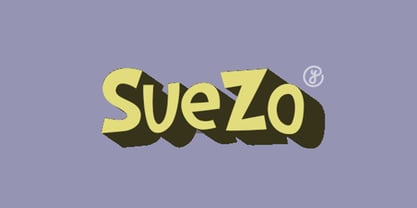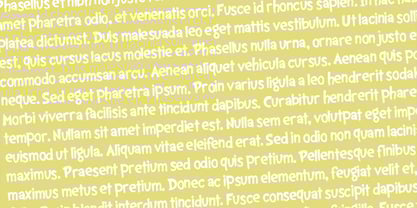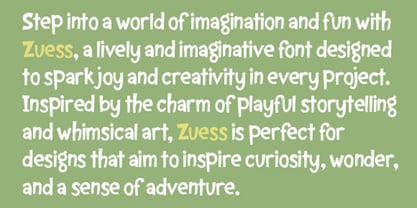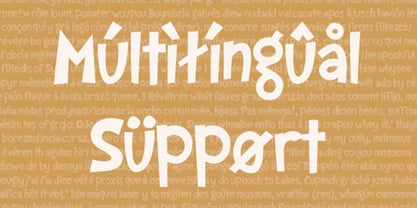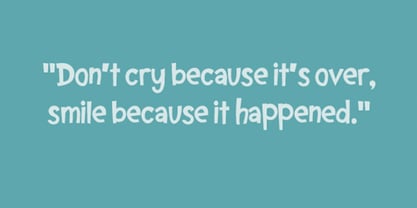
Suezo
The Suezo Font Family was designed by Untung Prasetyo and published by Yebhu. Suezo contains 1 styles.
Font SueZo: A Whimsical Typeface for Playful Creativity
Step into a world of imagination and fun with SueZo , a lively and imaginative font designed to spark joy and creativity in every project. Inspired by the charm of playful storytelling and whimsical art, SueZo is perfect for designs that aim to inspire curiosity, wonder, and a sense of adventure.
Why Choose SueZo?
• Playful Personality : SueZo features bouncy curves, uneven baselines, and quirky letterforms that bring a sense of spontaneity and energy to your designs. Each character feels alive, as if it has its own story to tell.
• Versatile Use : Whether you're designing book covers, posters, branding materials, or invitations, SueZo adds a touch of magic to any creative project. It’s a font that works equally well for kids’ content and adult-friendly designs.
• Handcrafted Details : Every glyph in SueZo is meticulously crafted to feel organic and approachable, with a hand-drawn charm that makes your text stand out. Its slightly irregular shapes give it a warm, friendly vibe.
• Perfect for Storytelling : With its rhythmic flow and expressive style, SueZo is ideal for projects where words need to dance off the page. Use it for titles, quotes, or any content that needs a playful yet polished look.
Key Features
• Uppercase & Lowercase Characters : Both sets are included, offering flexibility while maintaining the font’s whimsical essence.
• Custom Ligatures : Add a unique twist to your text with special ligature combinations that enhance the playful feel.
• Multilingual Support : Communicate globally with support for multiple languages, ensuring everyone can enjoy the charm of SueZo.
• Bonus Illustrations : This package includes bonus doodles and icons inspired by fantastical creatures, quirky hats, and imaginative landscapes—perfect for completing your creative vision.
Where to Use SueZo
• Children’s Books & Educational Materials : Bring stories and lessons to life with a font that feels both fun and engaging.
• Branding & Marketing : Ideal for brands targeting families, educators, or anyone who loves a creative and approachable aesthetic.
• Event Design : From birthday parties to school events, SueZo adds a festive and memorable touch.
• Social Media Graphics : Stand out on platforms like Instagram, Pinterest, or TikTok with visuals that pop with personality.
Let Your Imagination Soar!
With SueZo , you’re not just choosing a font—you’re unlocking a tool to create designs that captivate and inspire. Let your words leap off the page, tell stories that spark joy, and craft visuals that leave a lasting impression. After all, creativity knows no bounds—and neither does SueZo.